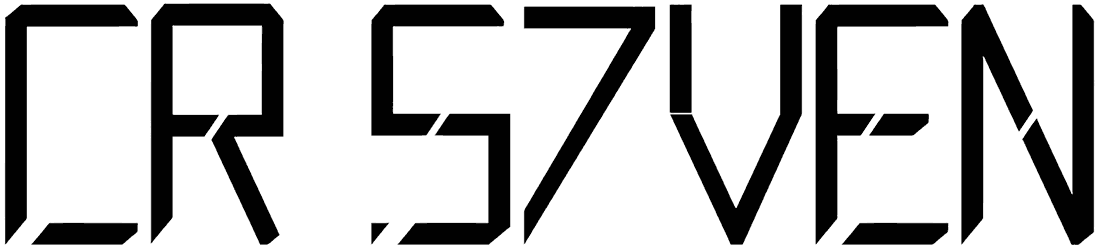
CR S7ven Font
Would you like to present your upcoming project with a technological and modern style? Take a look at this digital font with a hi-tech and unique vibe and electronic letter style, which is called CR S7ven. This techno font doesn’t have the support of lowercase letters and punctuation marks, but would be a distinct display for your creative designs, from logotypes to game graphics.